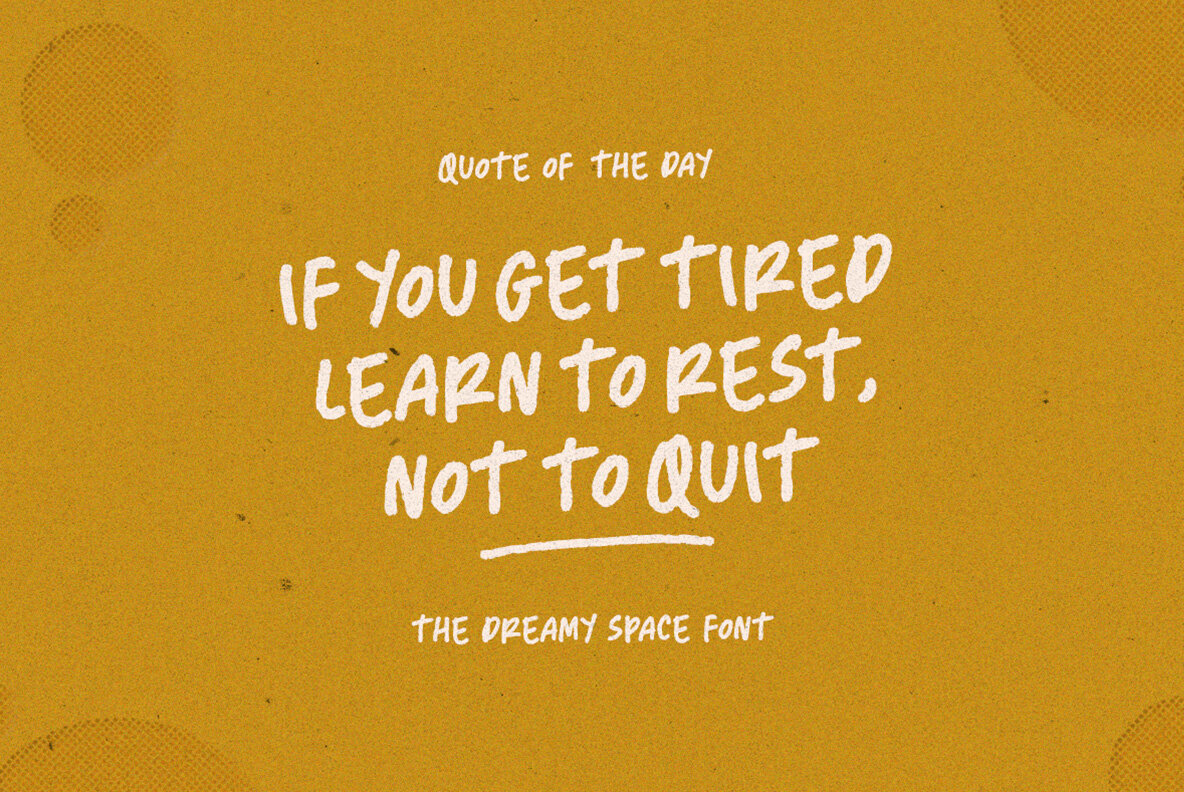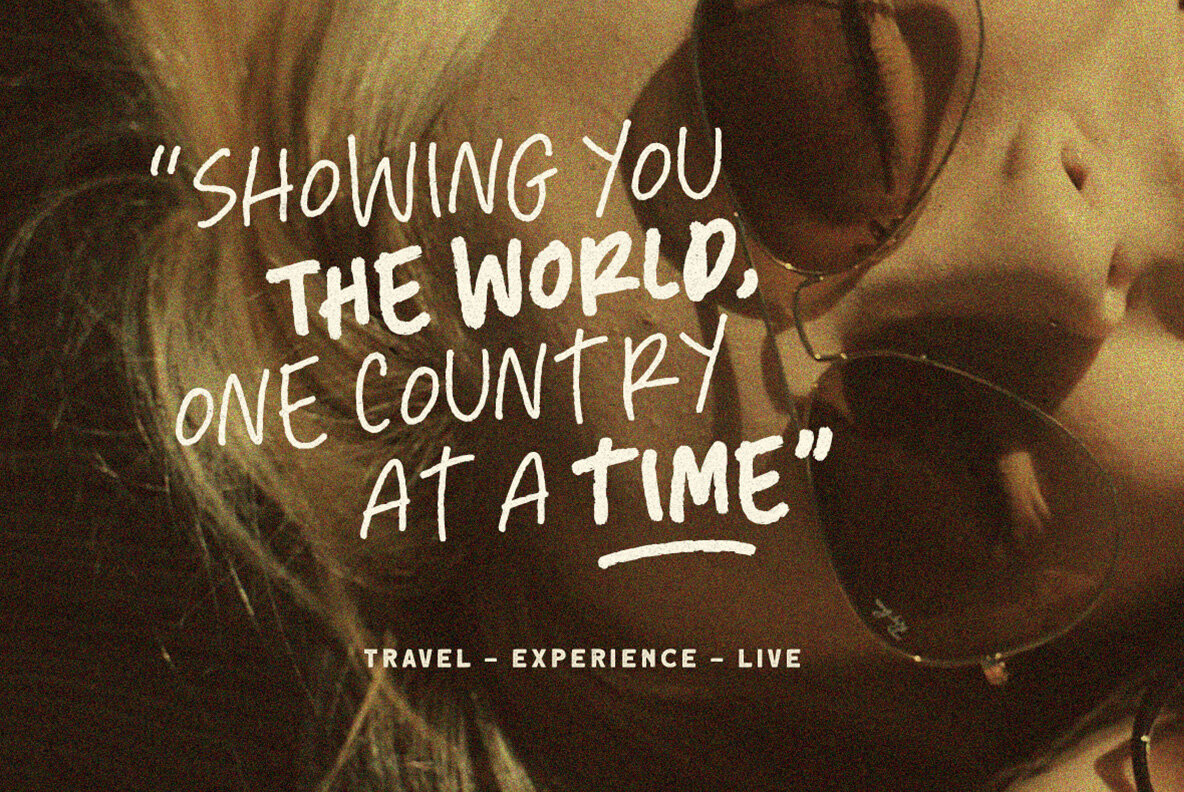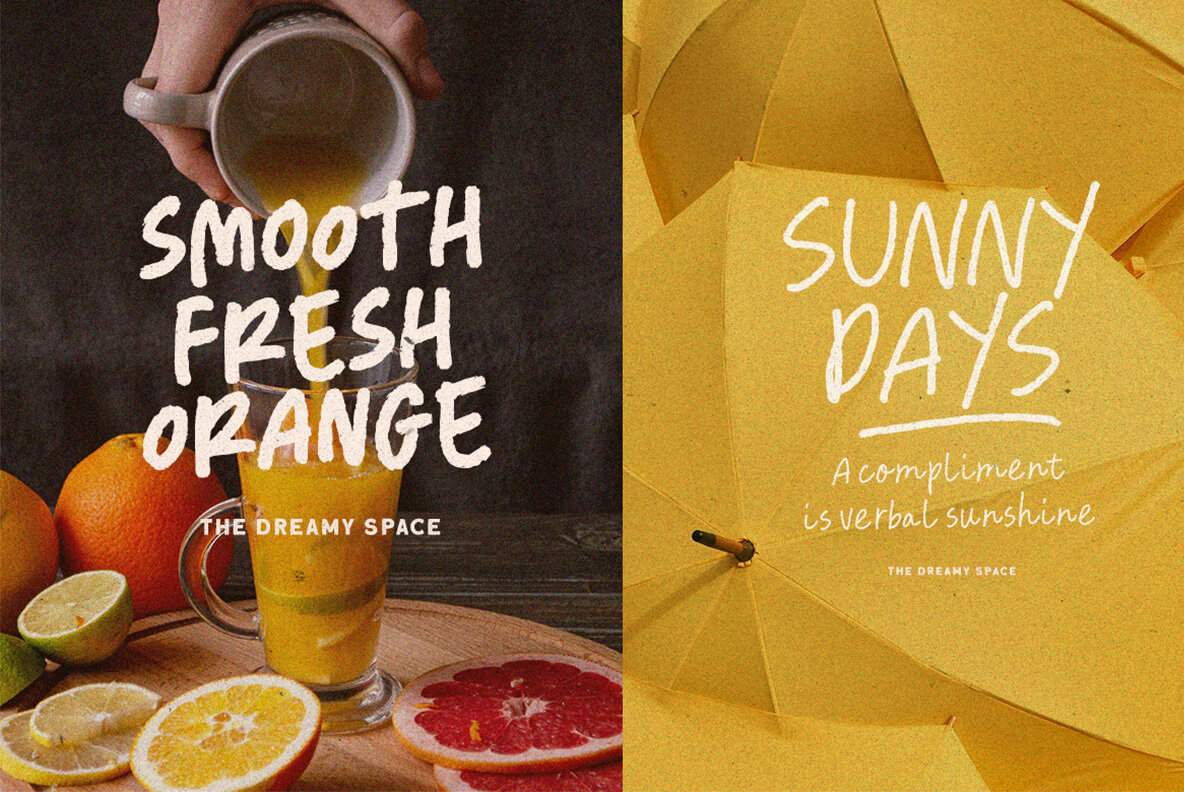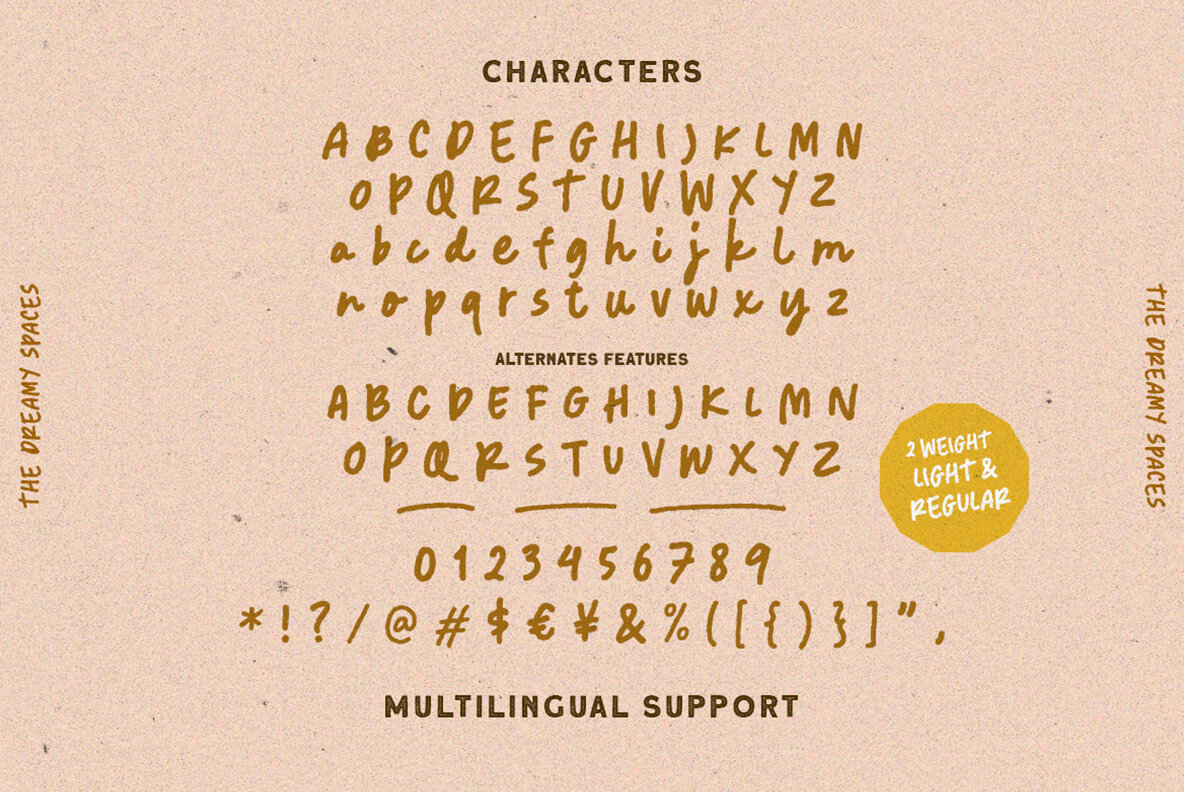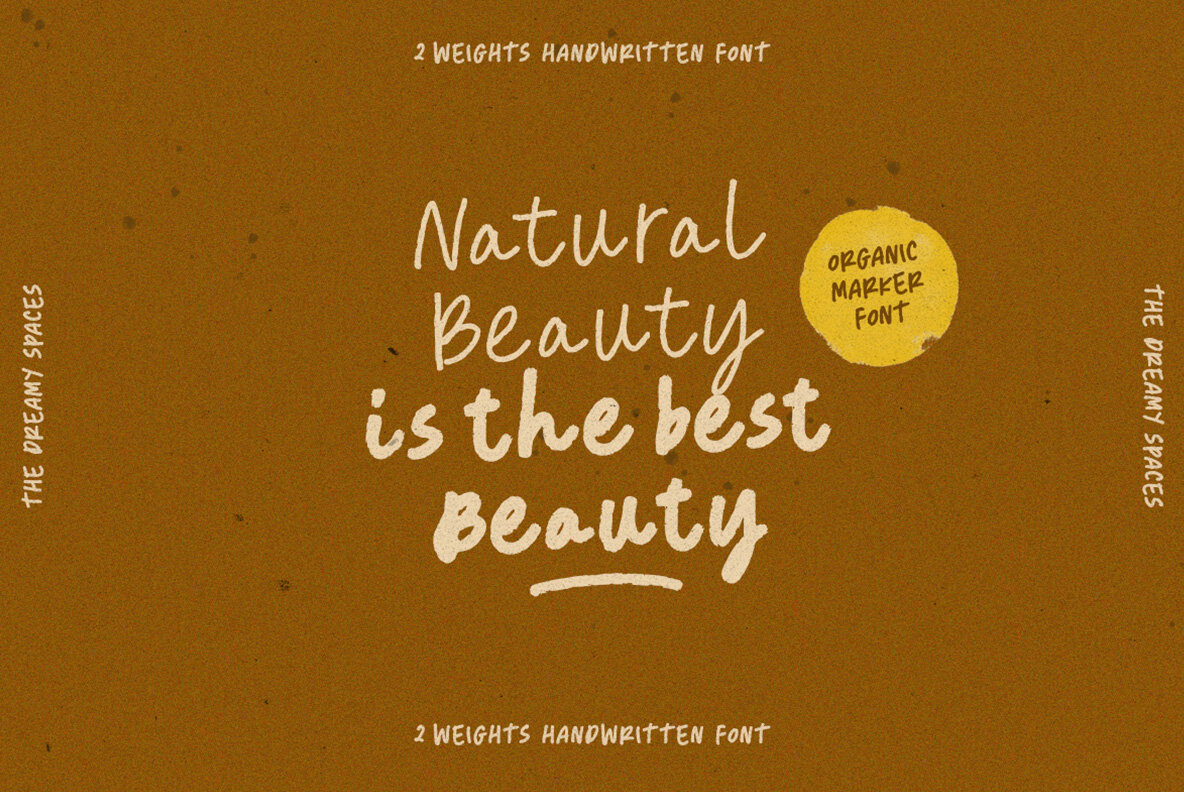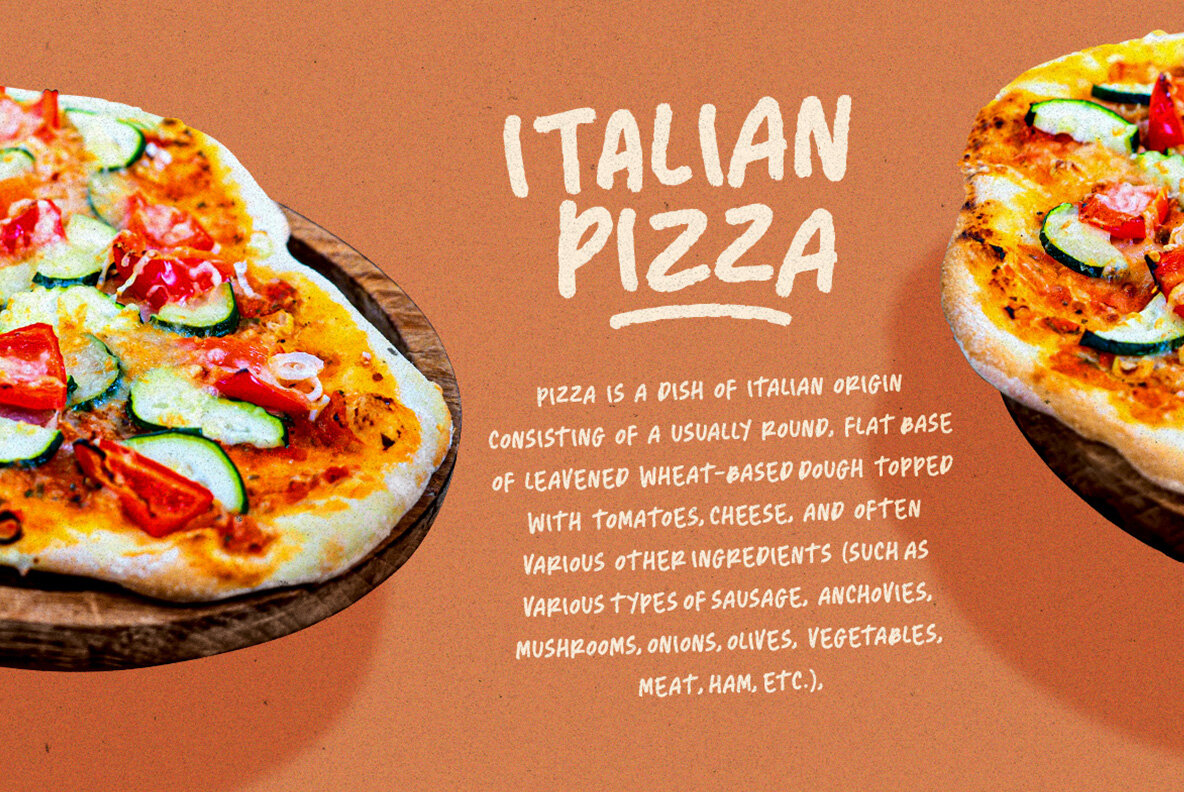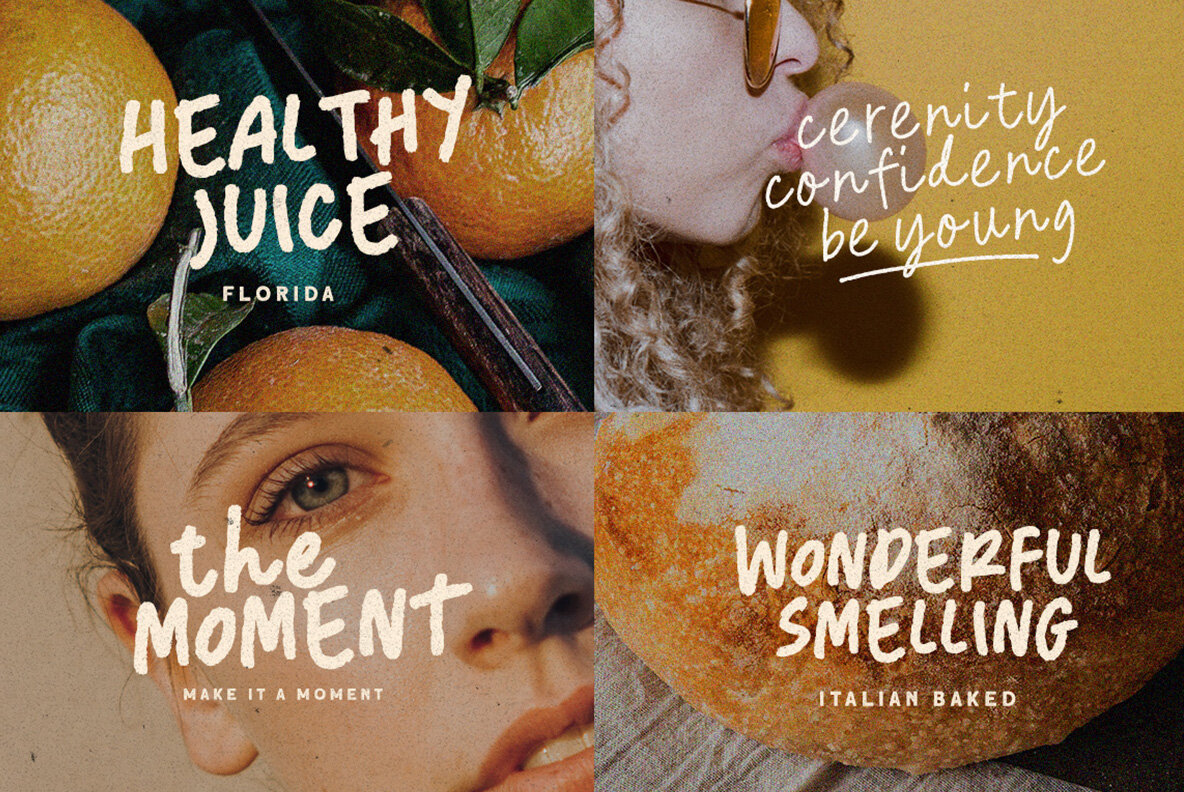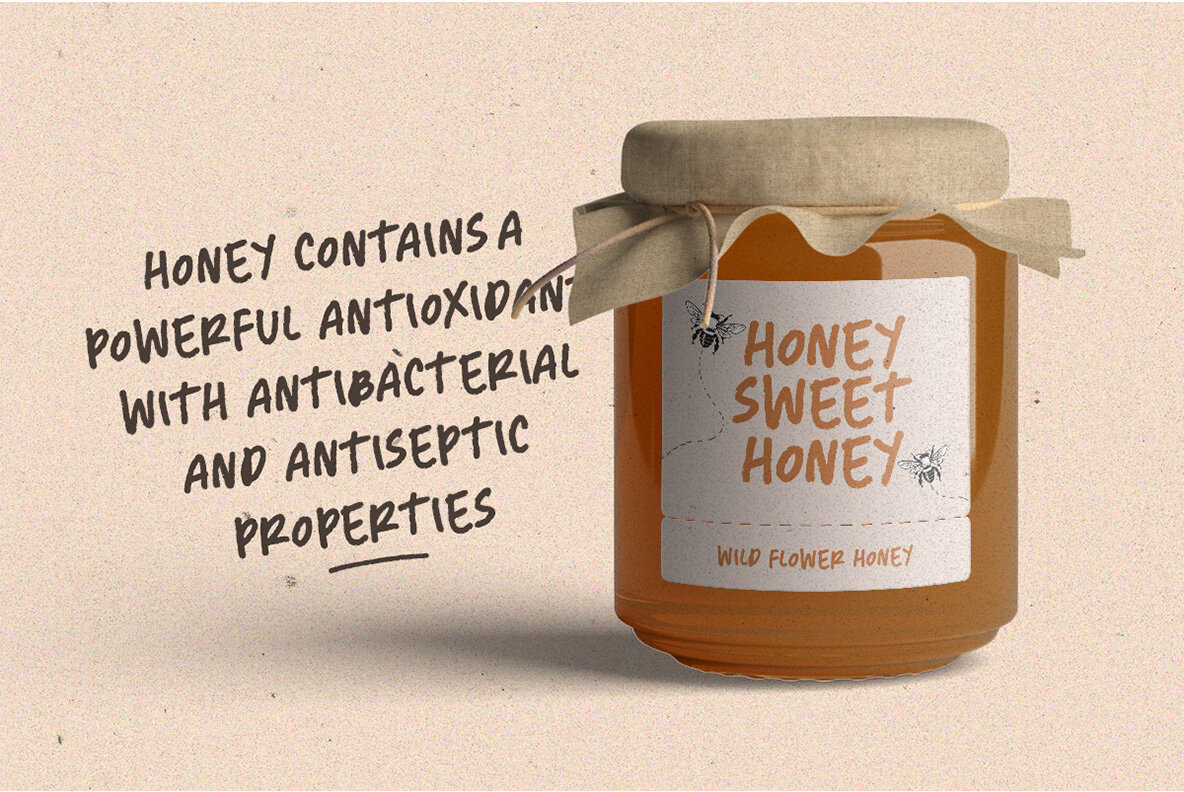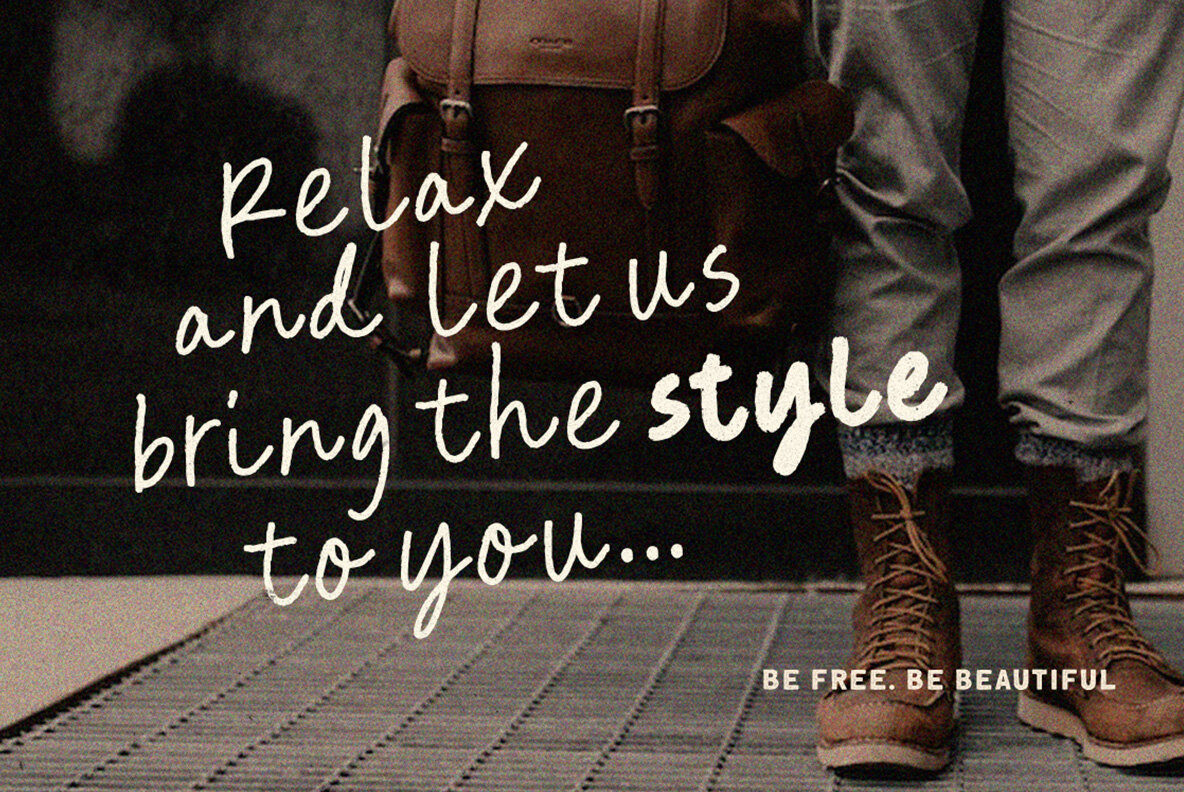
Dreamy Spaces Font
Dreamy Spaces offers an authentic handwritten aesthetic that breathes life into your projects. Its organic strokes and fluid composition mimic genuine handwriting, making it an excellent choice for logos, invitations, book covers, and other formal applications. This typeface embodies a versatile charm, seamlessly adapting to diverse creative needs in fashion, stationery, and more. To fully harness Dreamy Spaces' capabilities, use software that supports OpenType features and Glyphs panels, such as Adobe applications or Corel Draw. For guidance on accessing OpenType features, visit ....Dreamy Spaces: A Handwritten Typeface with Natural Flow